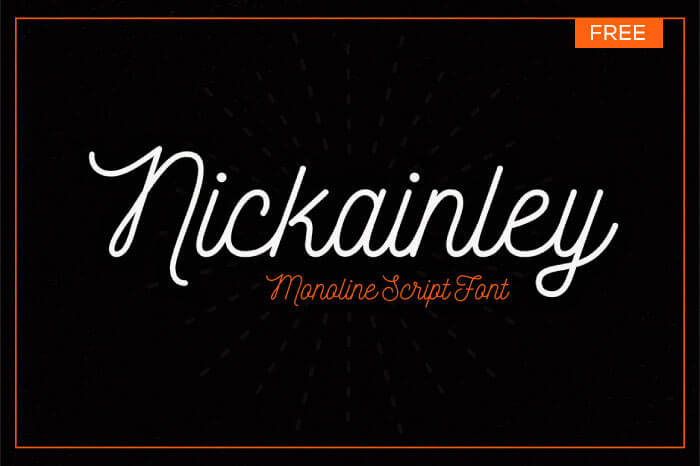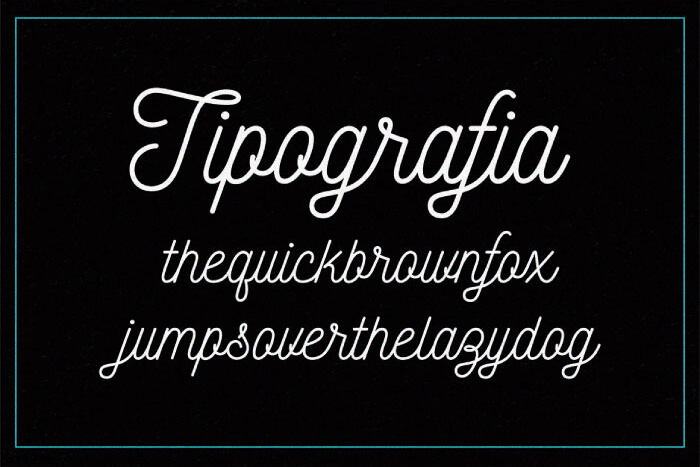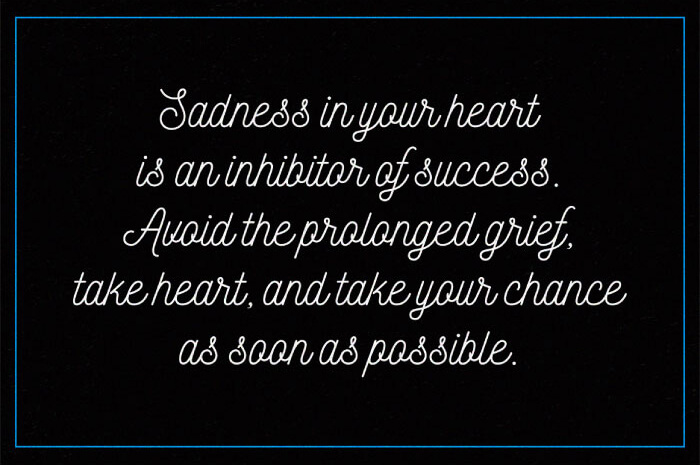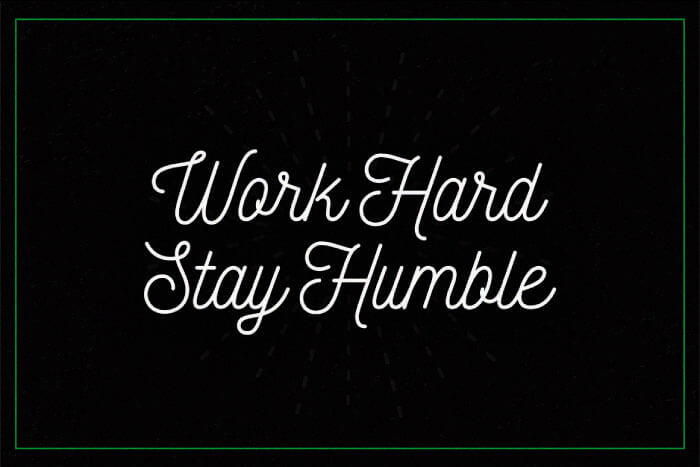
Nickainley Monoline Script Free Font
Nickainley is a Script free font that comes in lower and uppercase. It combines a cool handwritten style with some retro classic script style like those teached in old schools where the letters should be beautifully crafted with one line. As the author refers, this monoline script font can be used for many different purposes, and it’s free for personal and commercial use.